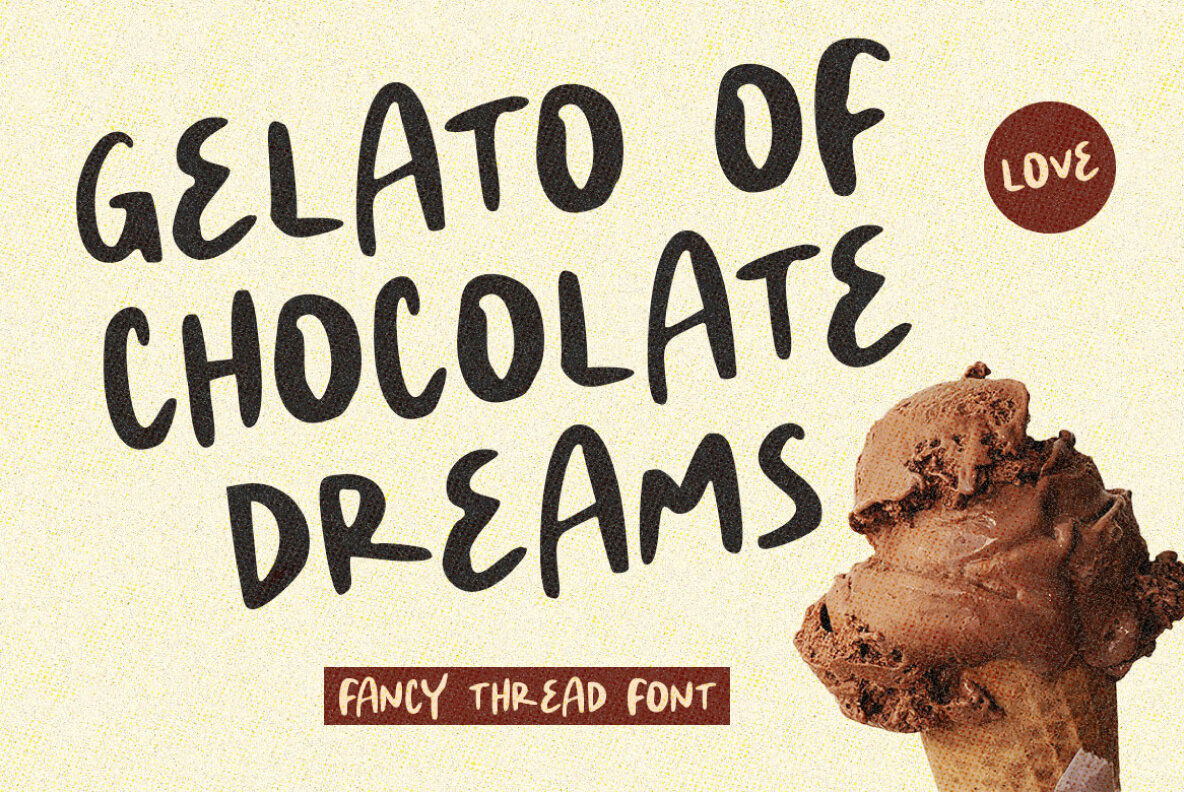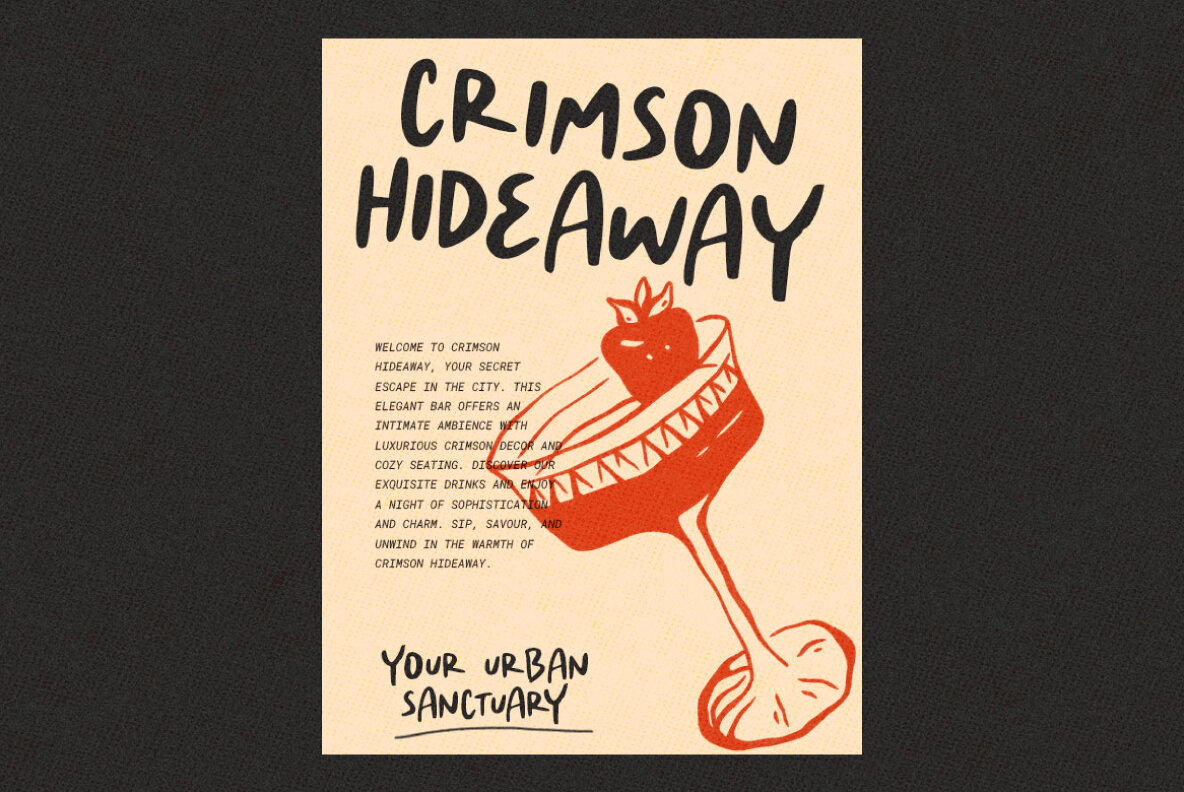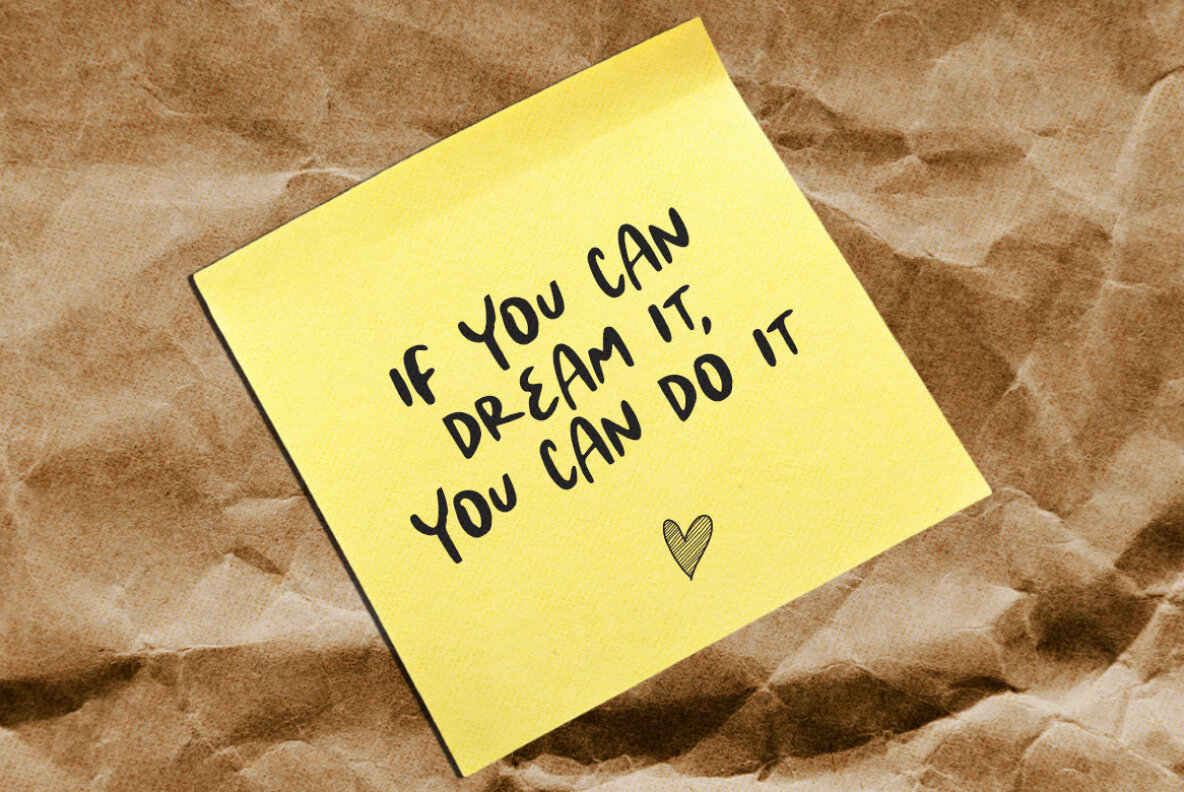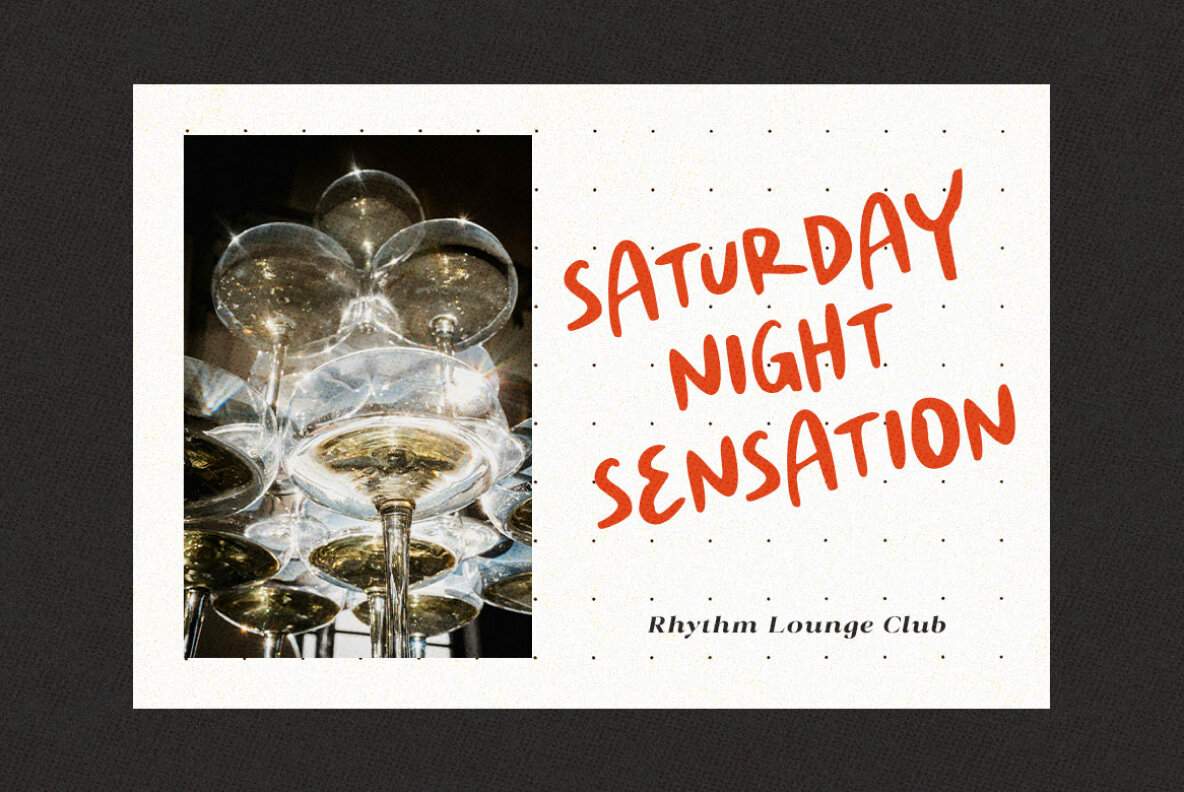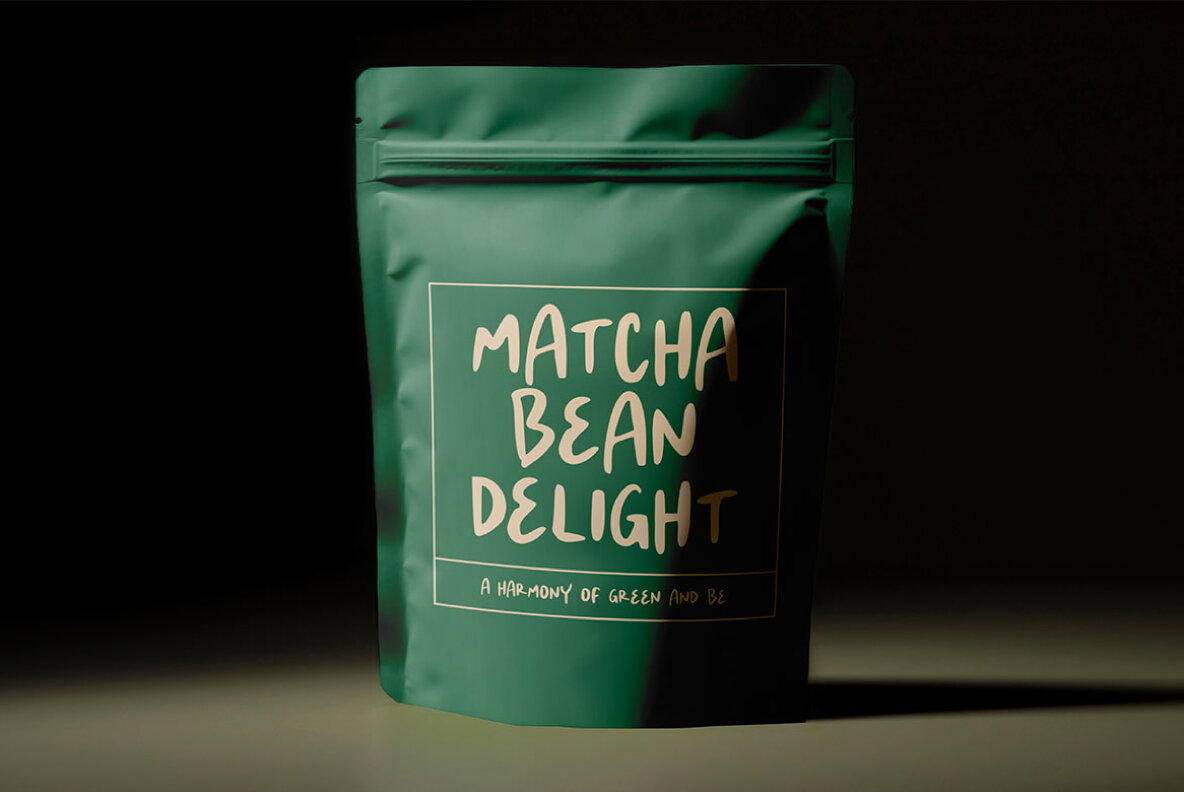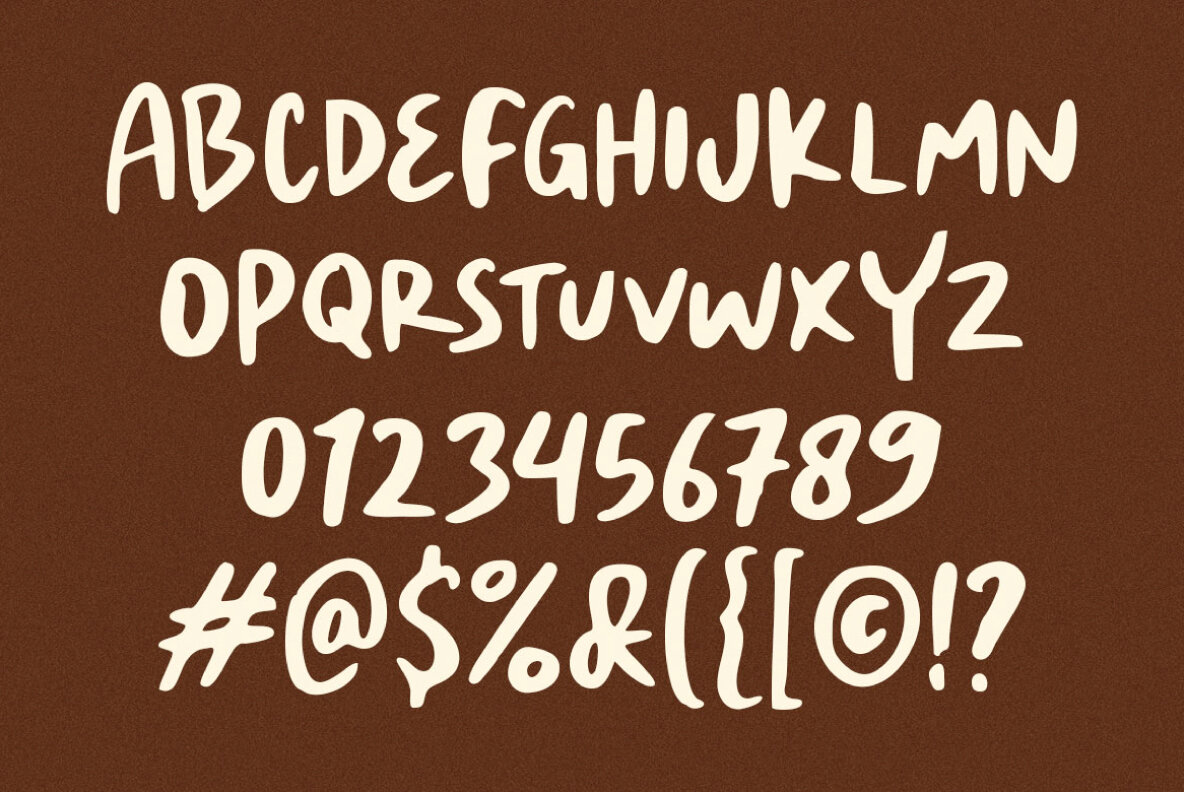
Fancy Thread Font
Fancy Thread
“Fancy Thread” is a whimsical handwritten font characterized by its delightful, playful spirit. Perfect for quotes, posters, and branding, its charming strokes bring a unique personality to any design. This versatile font effortlessly adds a touch of creativity and fun, making it ideal for eye-catching and memorable projects.
Features include uppercase, lowercase, numerals, punctuation, and multilingual support. "Fancy Thread" is compatible with an extensive range of languages, from Afrikaans to Zulu. This font is an excellent choice for designers seeking to add a unique, personal touch to their work.